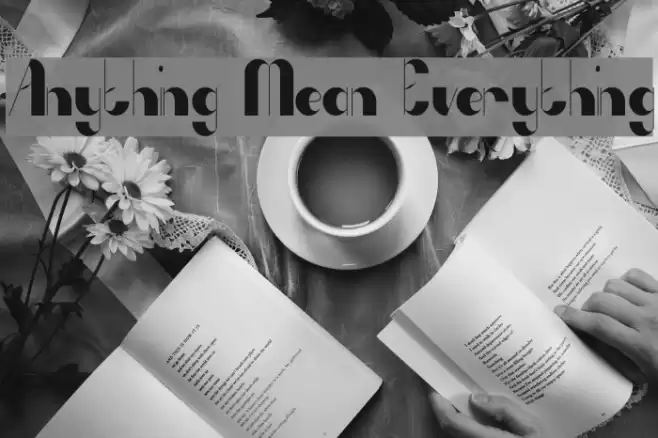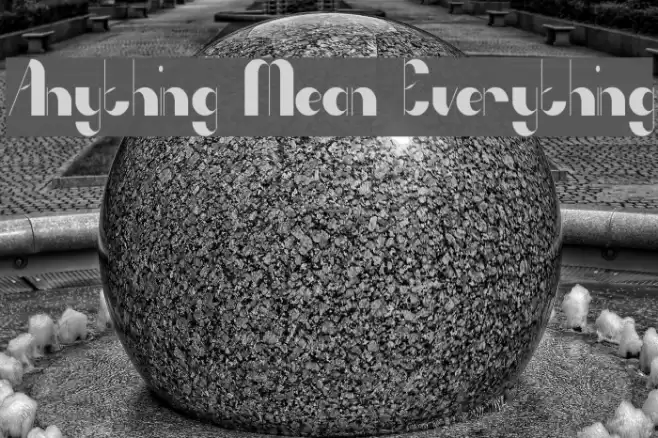
Anything Mean Everything Font
Anything Mean Everything Description
This font features a unique and artistic design, characterized by its high contrast between thick and thin strokes. The uppercase letters have a bold, geometric appearance with sharp angles and curves, creating a striking visual impact. The lowercase letters maintain a similar style but with a more fluid and connected form, adding a touch of elegance. The numbers and special characters are designed to match the overall aesthetic, ensuring consistency throughout. This font's distinct style makes it suitable for creative and modern projects, where a bold statement is desired.
A high-contrast, geometric font with artistic flair and bold visual impact from Uncategorized fonts.
- Proposed Projects: Ideal for branding, poster design, album covers, and modern art projects.